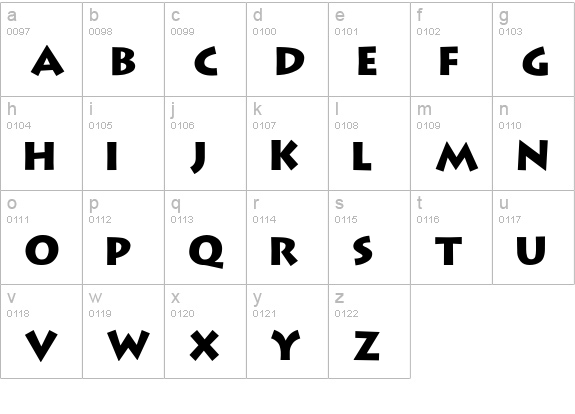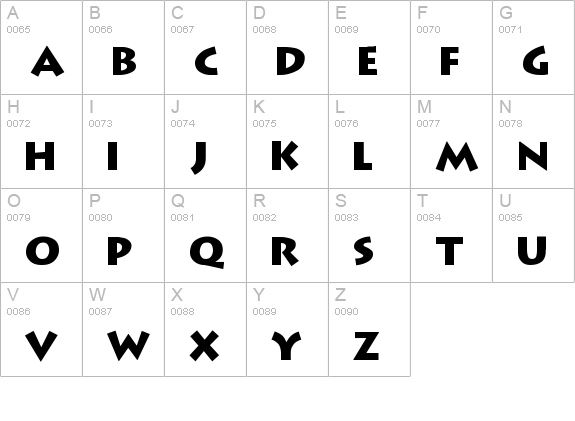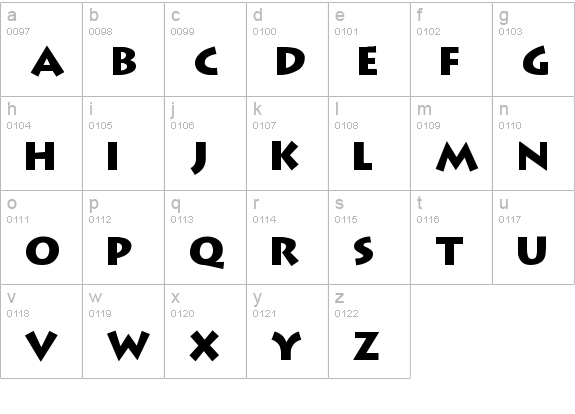
Lithograph font is a stunning typeface that beautifully captures the essence of vintage printing techniques. Its strong, bold letterforms exude a sense of history and craftsmanship, making it perfect for projects that require a touch of nostalgia. With its intricate details and classic appeal, Lithograph font adds a unique charm to any design it is used in. The best part? Lithograph font is available for free download at FontsMarket.com, making it easily accessible to designers and creatives looking to add a touch of retro elegance to their work. Whether you're working on a poster, logo, or branding project, Lithograph font is sure to make a statement and leave a lasting impression. Download it today and elevate your designs with this timeless typeface.